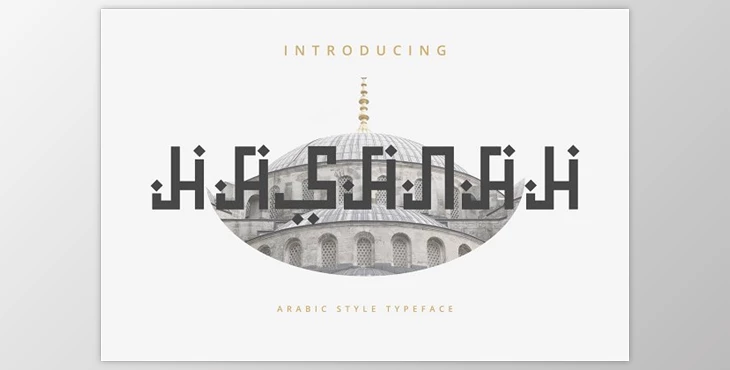
Hasanah – Arabic Style Typeface Font: Hasanah is a typeface in Arabic. It is elegant, decorative relaxed, modern, and Arabic. It's an excellent font for events, Muslim fashion, Islam, fashion clothing projects, and album covers. It's also great for signature, album cover logos, branding, social media magazines, and advertisements. However, it is also great to create other designs.
Some great features of Hasanah – Arabic Style Typeface Font:
- Essential Latin A-Z and a-z
- Numbers
- Symbols
- PUA Encode
What is an Arabic Style Typeface Font?
Introducing an Arabic Style Typeface Font, intricately crafted to seamlessly translate the distinctive and artistic features of Arabic calligraphy into the digital space. This font is meticulously designed to encapsulate the beauty and cultural opulence inherent in Arabic script, delivering a visually striking and authentic representation. Whether you're engaged in design projects, branding, or any creative pursuit, the Arabic Style Typeface Font infuses an element of elegance and cultural depth into your typography. Embrace the essence of Arabic calligraphy with this thoughtfully curated font, harmonizing tradition, and contemporary design to enrich your creative expressions.